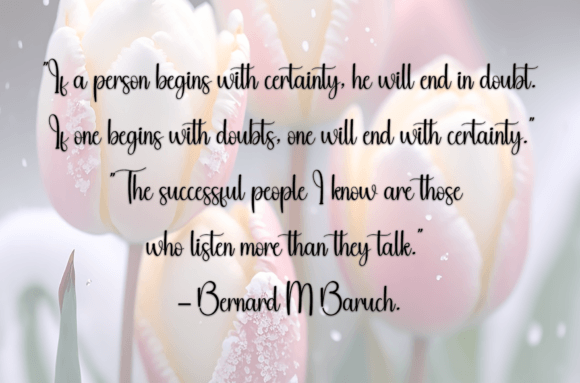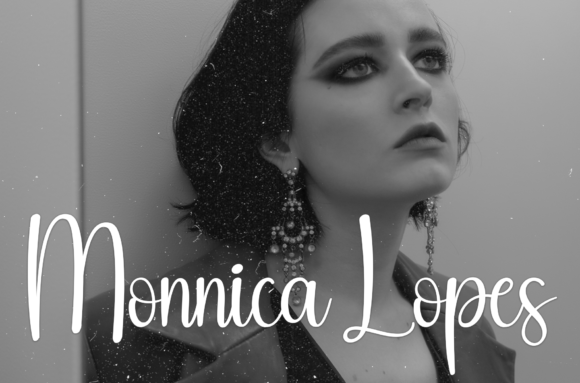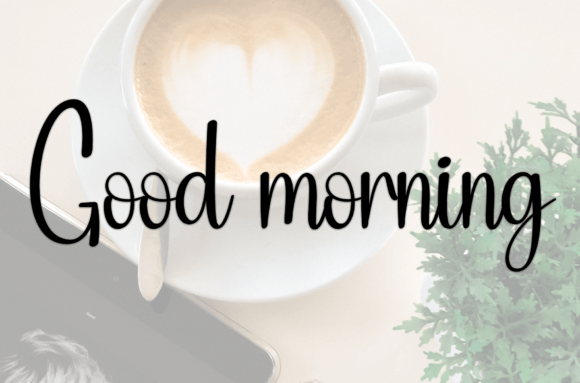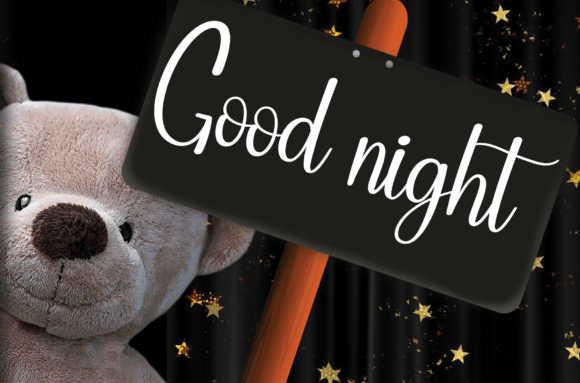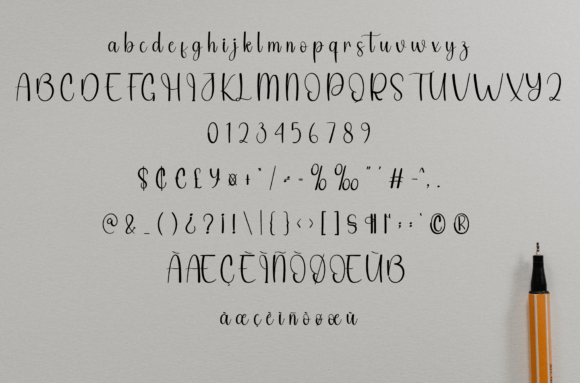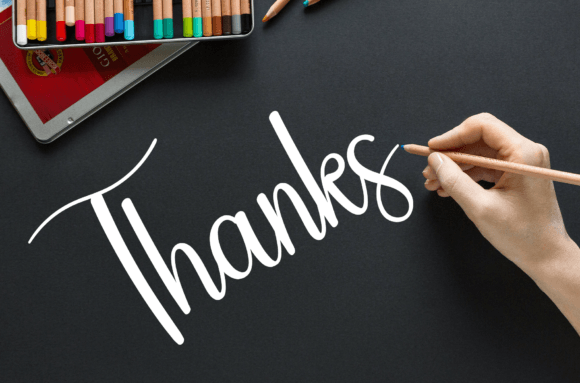
The Sweet and Friendly Flying Balloons Font: A Designer’s Delight
I’ll never forget the time I was working on a wedding invitation project, and my client asked me to add a touch of whimsy to the design. I spent hours scouring the internet for the perfect font, but nothing seemed quite right. That was until I stumbled upon the Flying Balloons font. It was love at first sight! 🎉
This sweet and friendly handwritten font has become a staple in my design toolkit, and I’m excited to share its charm with you. In this article, we’ll dive into the world of Flying Balloons, exploring its features, how to use it, and some similar fonts you might enjoy.
An Honest Review of Flying Balloons Font
- ✨ The playful, cursive script is perfect for adding a touch of fun to any design
- ✅ The font is highly legible, even at smaller sizes
- 🎉 The OpenType features, including glyphs and stylistic alternates, offer endless creative possibilities
- 💕 The font’s friendly and approachable vibe makes it ideal for designs that require a personal touch
While Flying Balloons is an amazing font, it’s not without its quirks. For example:
- 🤔 The font can be a bit overzealous with its swashes, which may not be suitable for all designs
- ⚠️ Some characters, like the lowercase “g” and “y”, have slightly different baselines, which may require manual adjustments
The Designer Inspiration Behind Flying Balloons
The Flying Balloons font was inspired by the joy and freedom of childhood. Imagine a summer day filled with laughter, sunshine, and floating balloons. The font’s creator wanted to capture the essence of this carefree feeling and bring it to life in a beautiful, handwritten font.
Q: What type of designs is Flying Balloons best suited for?
A: Flying Balloons is perfect for designs that require a touch of whimsy and fun, such as wedding invitations, cards, and other creative projects.
Q: Is Flying Balloons a difficult font to read?
A: No, Flying Balloons is a highly legible font, even at smaller sizes. However, it’s always a good idea to test the font in your specific design to ensure it works well for your needs.